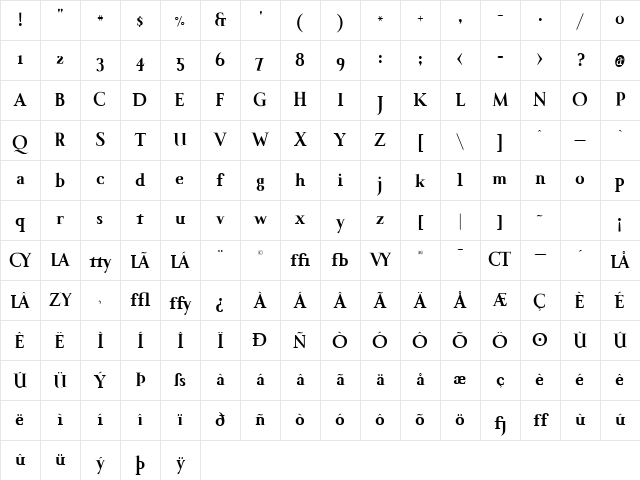
Complete IndisposeLigatures Bold glyph index. Displaying only characters natively supported by IndisposeLigatures Bold font.
IndisposeLigatures is a composed and adaptable typeface that performs quietly and consistently across a wide range of design contexts. Its bold stroke weight gives it real presence on the page.